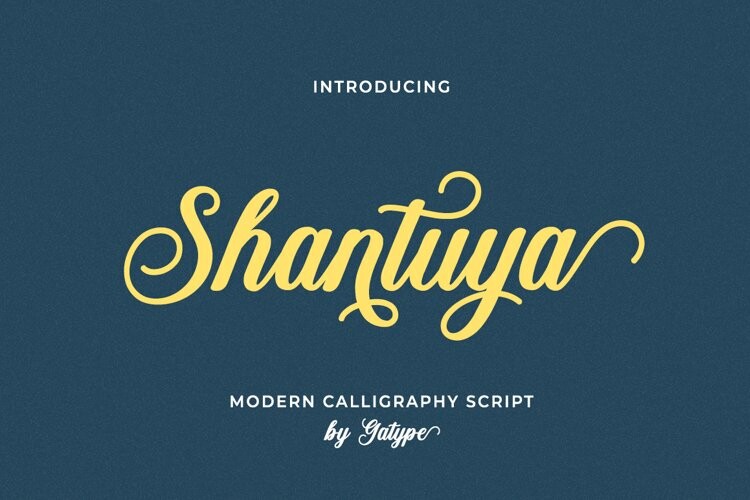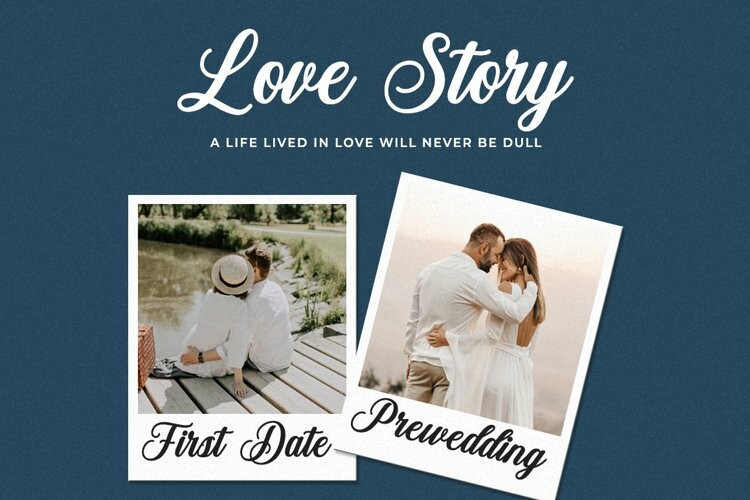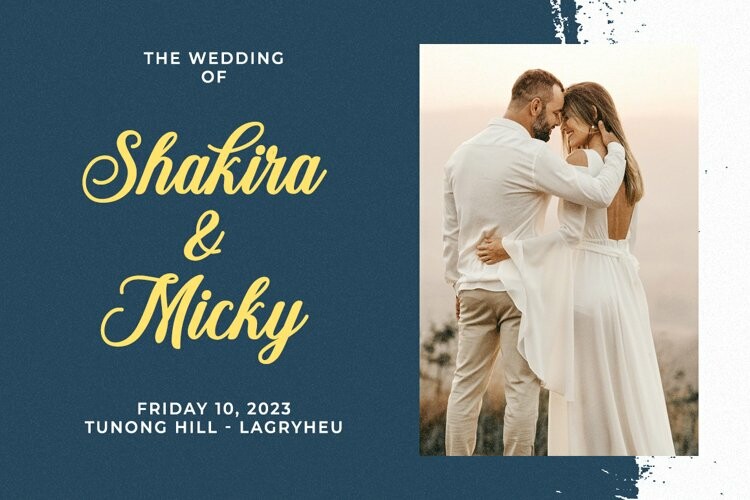
Shantuya Font
Shantuya FontShantuya is a beautiful handwritten font. Its casual charm makes it seem very down-to-earth, easy to read, and, ultimately, incredibly versatile. Shantuya will look amazing in any context, whether it’s used on a busy background or as a standalone title!